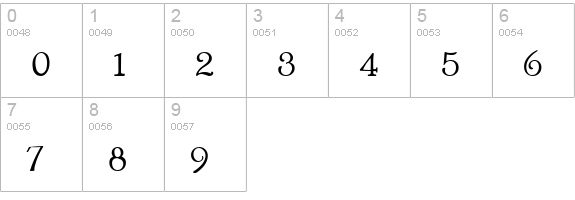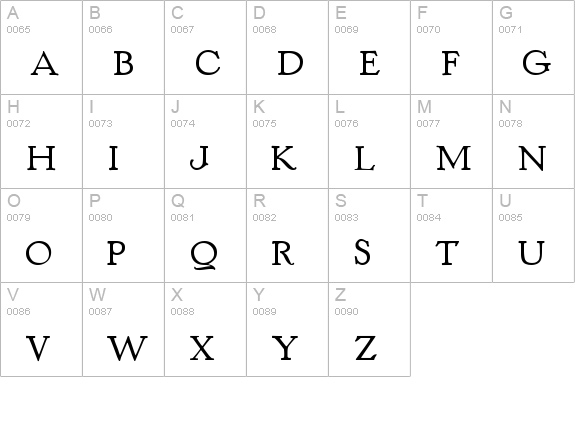
Colwell HPLHS Font Details
The Colwell HPLHS font is a beautifully crafted typeface inspired by vintage horror and gothic aesthetics. With its elegant serifs and intricate details, this font exudes a sense of mystery and intrigue, making it perfect for use in various design projects. Whether you're working on a spooky Halloween invitation or a classic horror movie poster, the Colwell HPLHS font will add a touch of sophistication and style to your work. Best of all, this stunning font is available for free download at FontsMarket.com. Simply visit the website and get your hands on this unique typeface to elevate your designs to a new level of creativity. Embrace the dark and enigmatic with the Colwell HPLHS font and watch as your projects come to life with an air of elegance and allure.